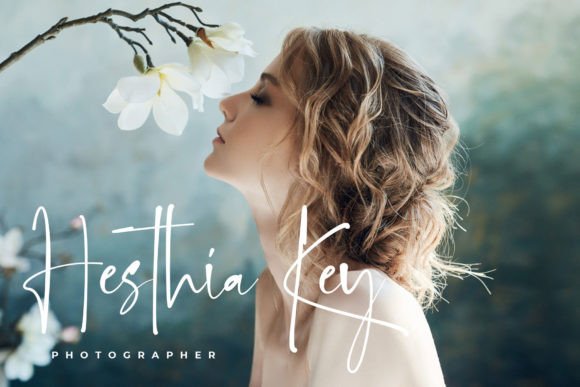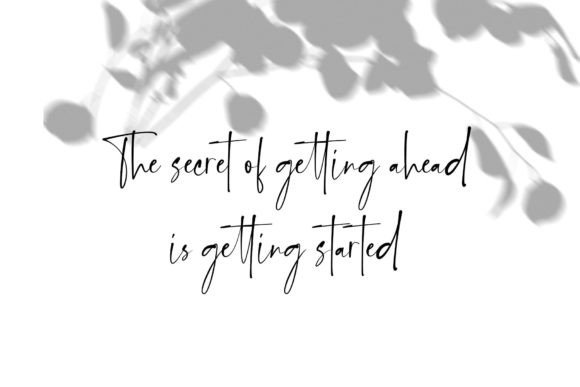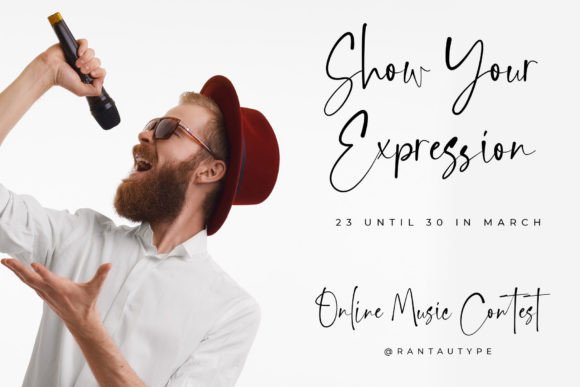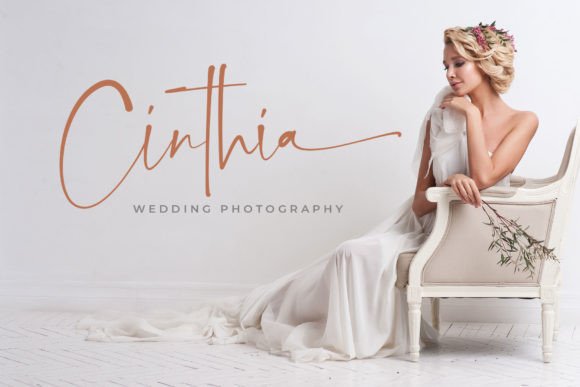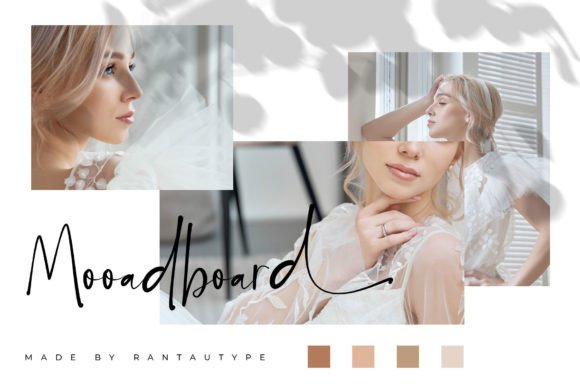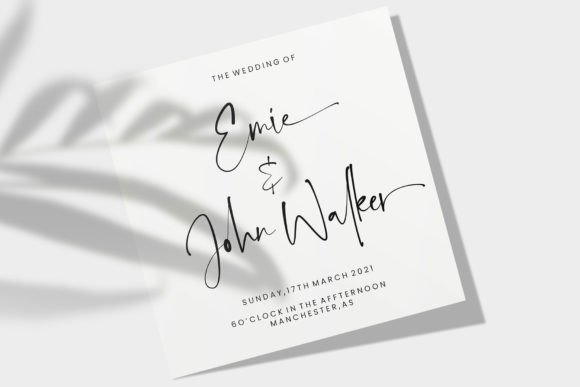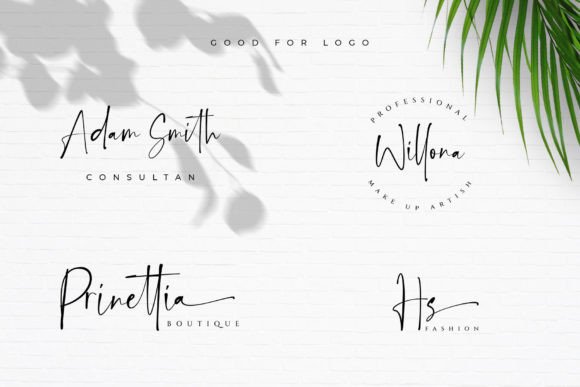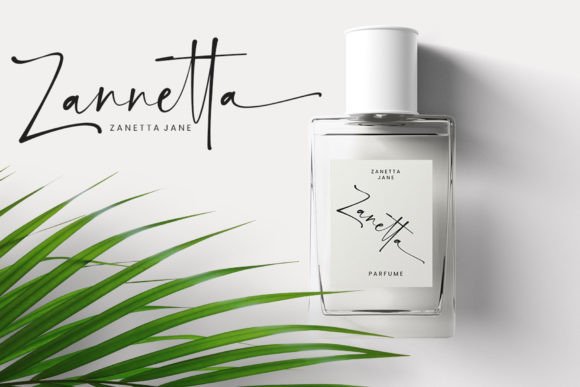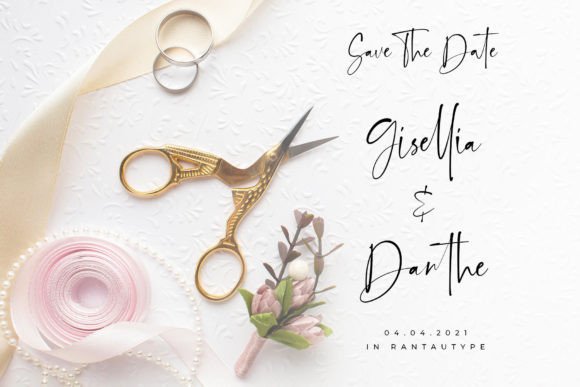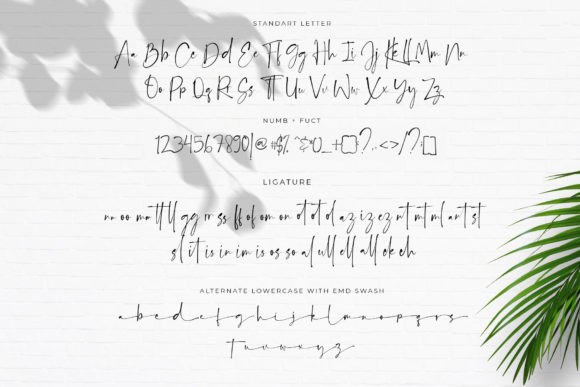
Bandetta Font
Add Professional Style with Bandetta Font
The Bandetta font is a stylish and professional script designed to bring a modern, readable, and catchy look to your creative projects. Whether you’re working on photography watermarks, signature logo designs, quotes, album covers, magazines, business cards, or various other designs, Bandetta elevates your work with elegance and flair.
Perfect for Watermarks, Logos, and Branding
The Bandetta font shines in a wide range of design contexts including branding, editorial layouts, personalized stationery, and social media graphics. Its smooth strokes and contemporary style give your projects a polished and professional appeal.
A Script Font That Balances Style and Readability
Each character in the Bandetta font is carefully crafted to deliver a stylish yet highly readable script. This balance makes it perfect for logos, headlines, quotes, and detailed text elements that require both beauty and clarity.
Versatile Typography for Various Projects
Despite its stylish flair, the Bandetta font maintains excellent readability across all sizes. Whether used for small watermarks or large titles, it adds sophistication without sacrificing clarity, making it a versatile choice for many creative endeavors.
Make Your Designs Stand Out with Bandetta
Typography is key to defining your design’s personality, and Bandetta offers a professional and stylish script that makes your projects shine. If you want to elevate your creative work with a modern and elegant font, download the Bandetta font today and create stunning, memorable visuals.